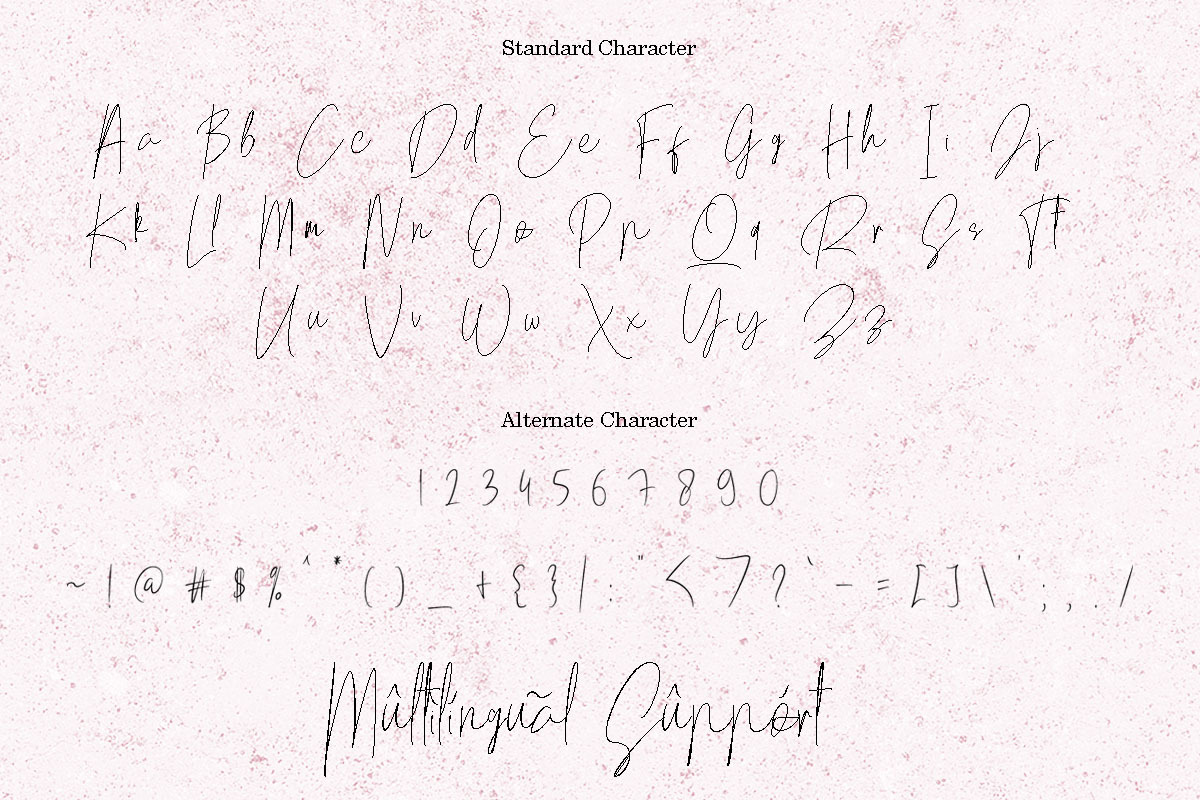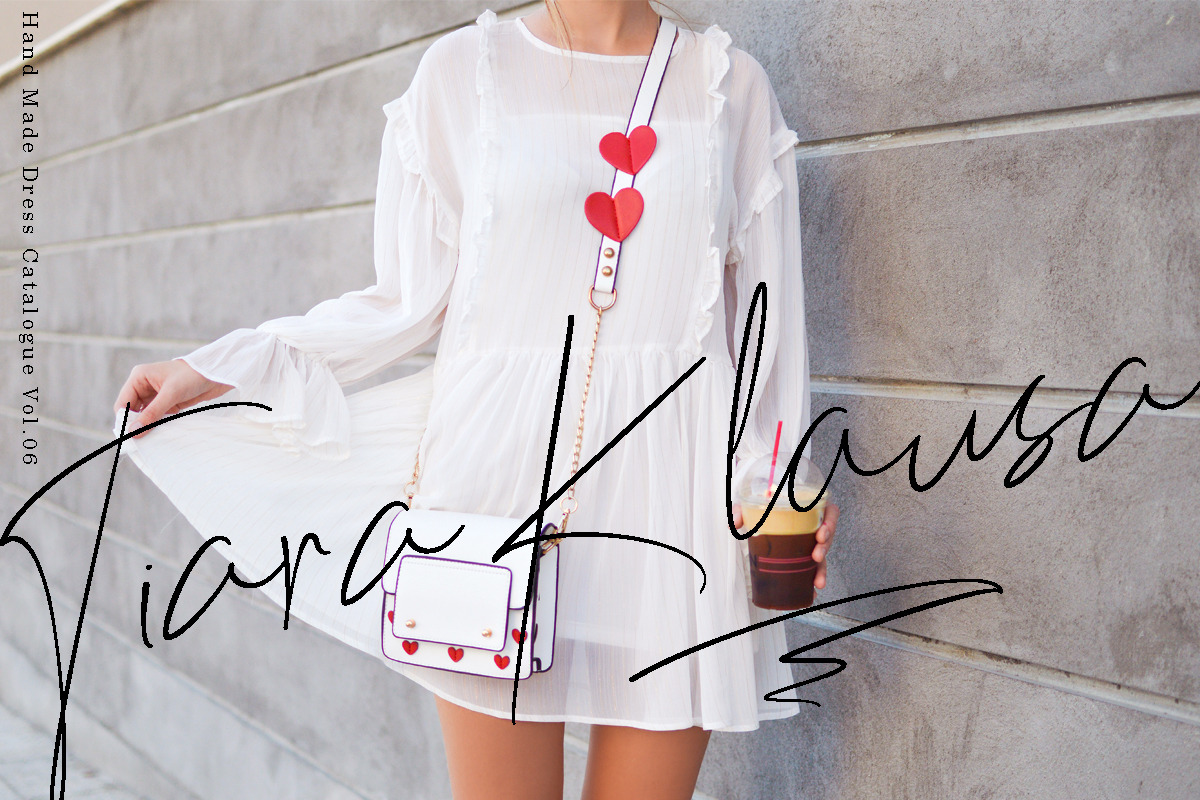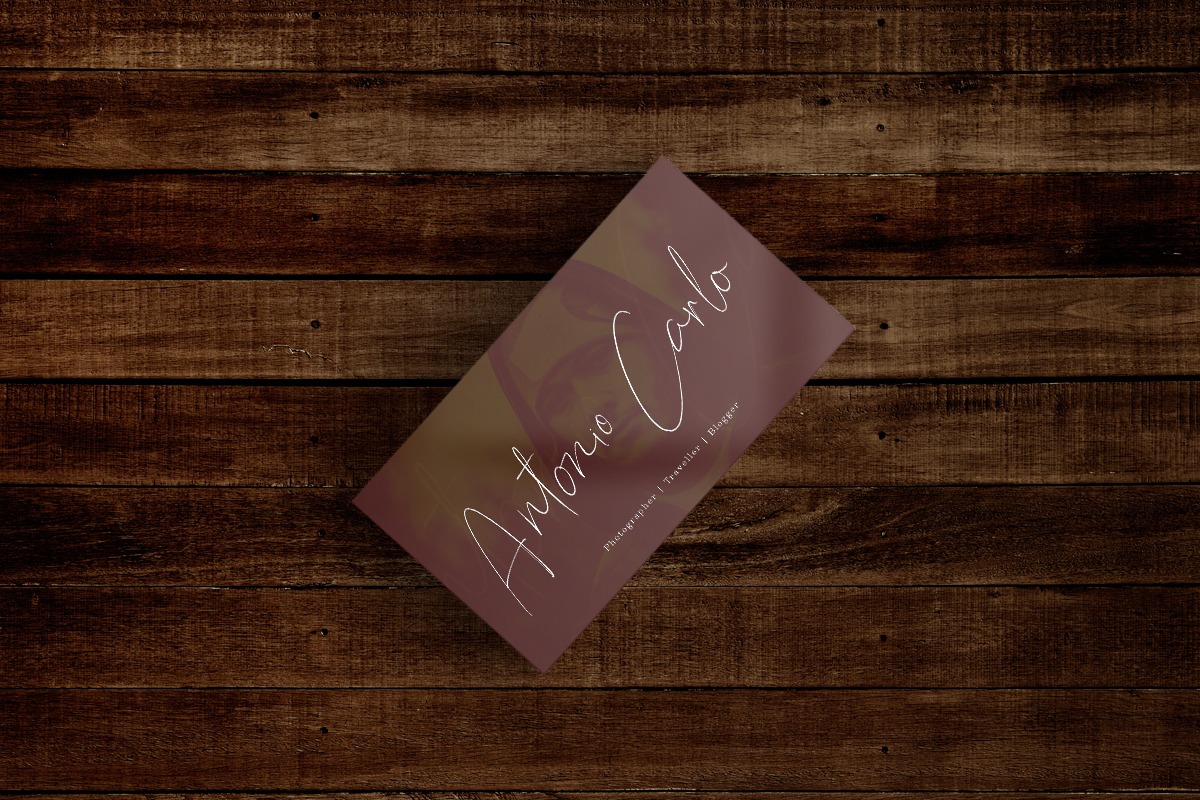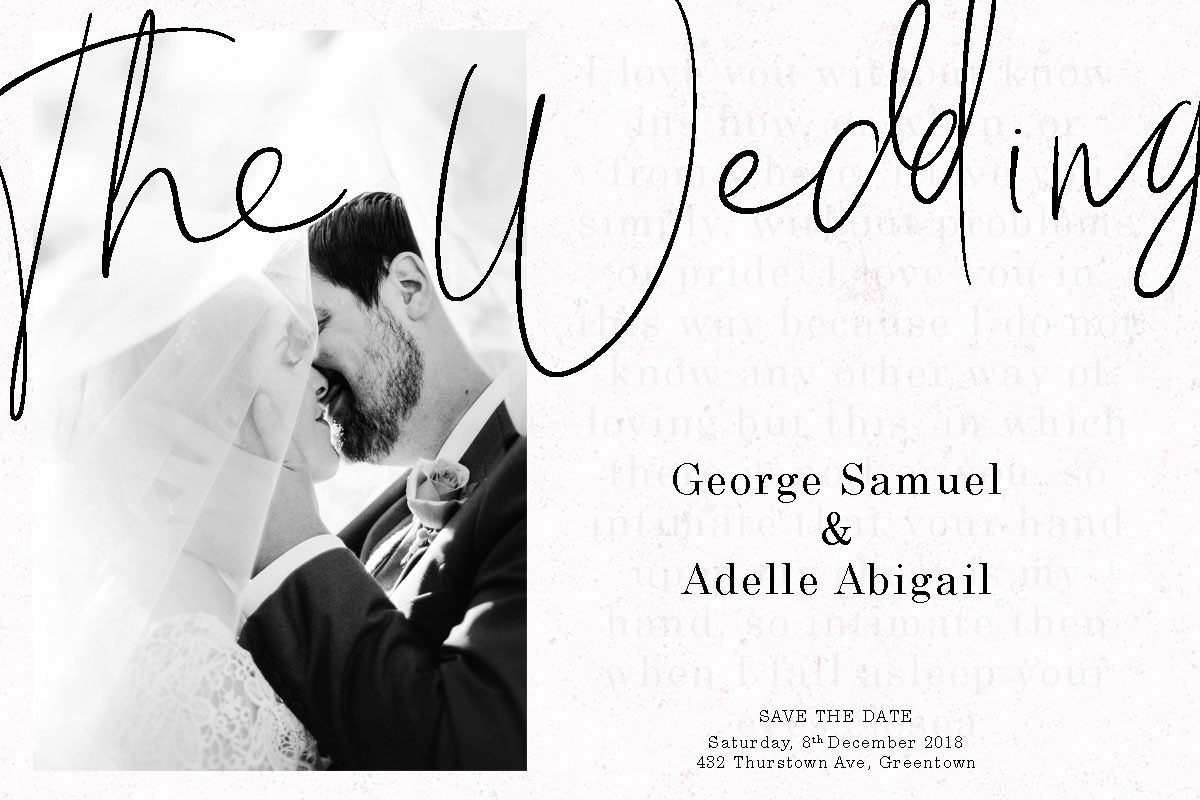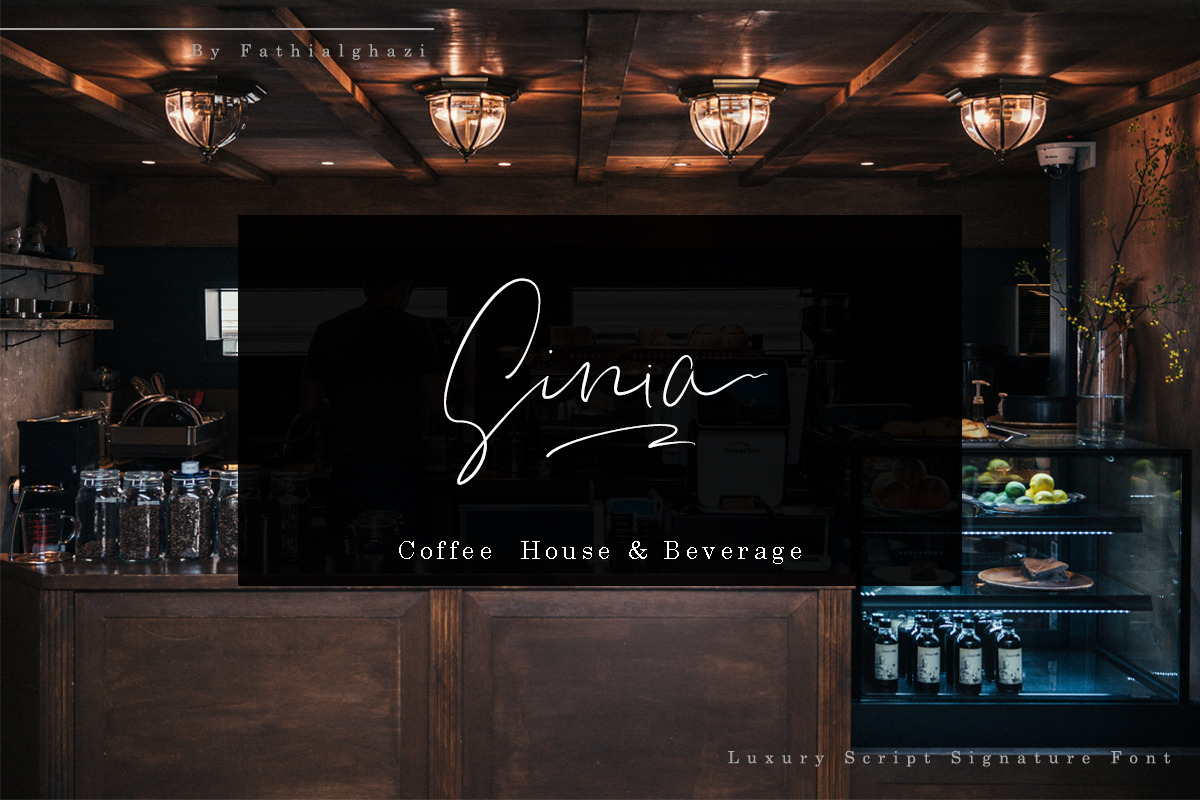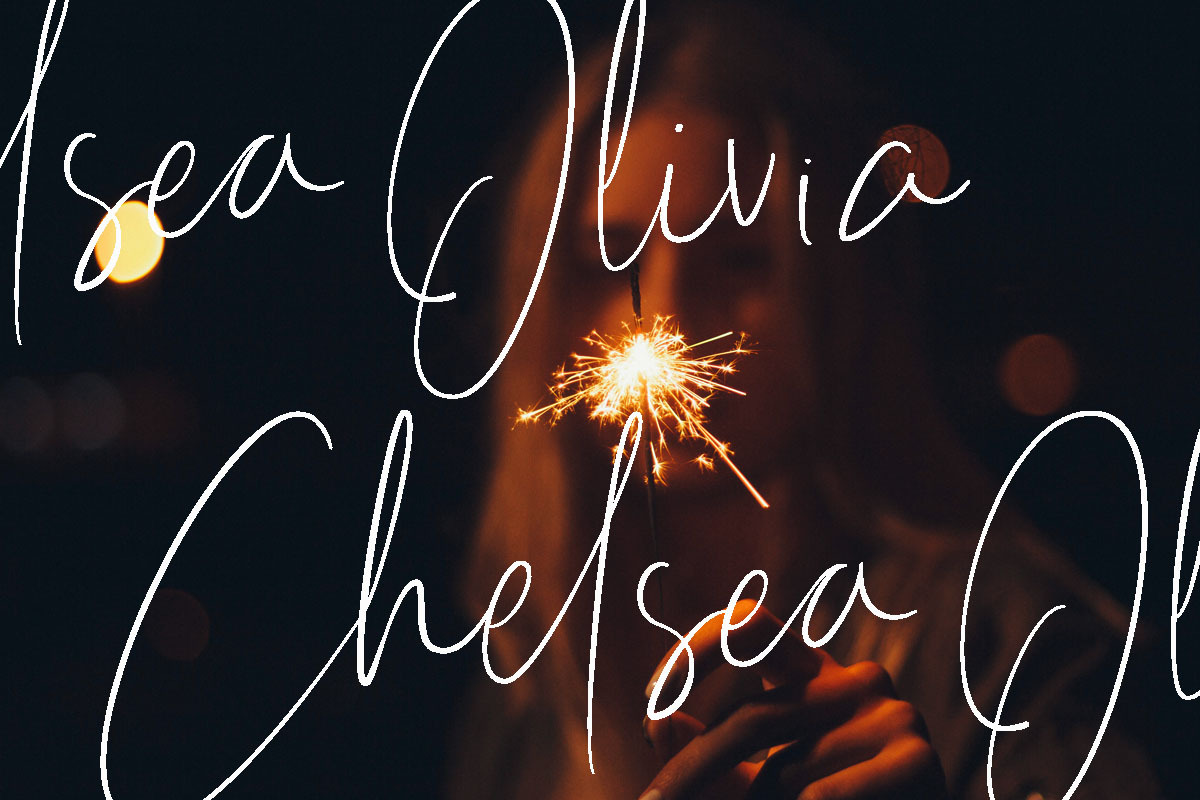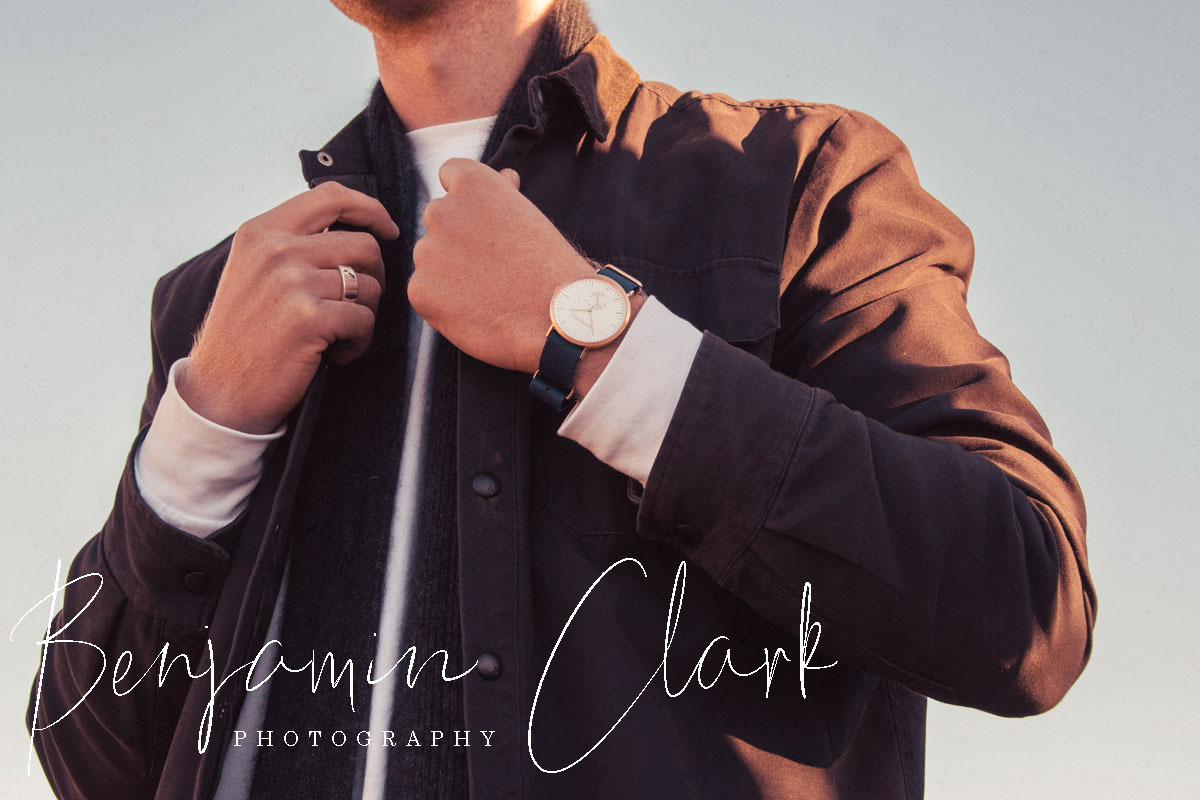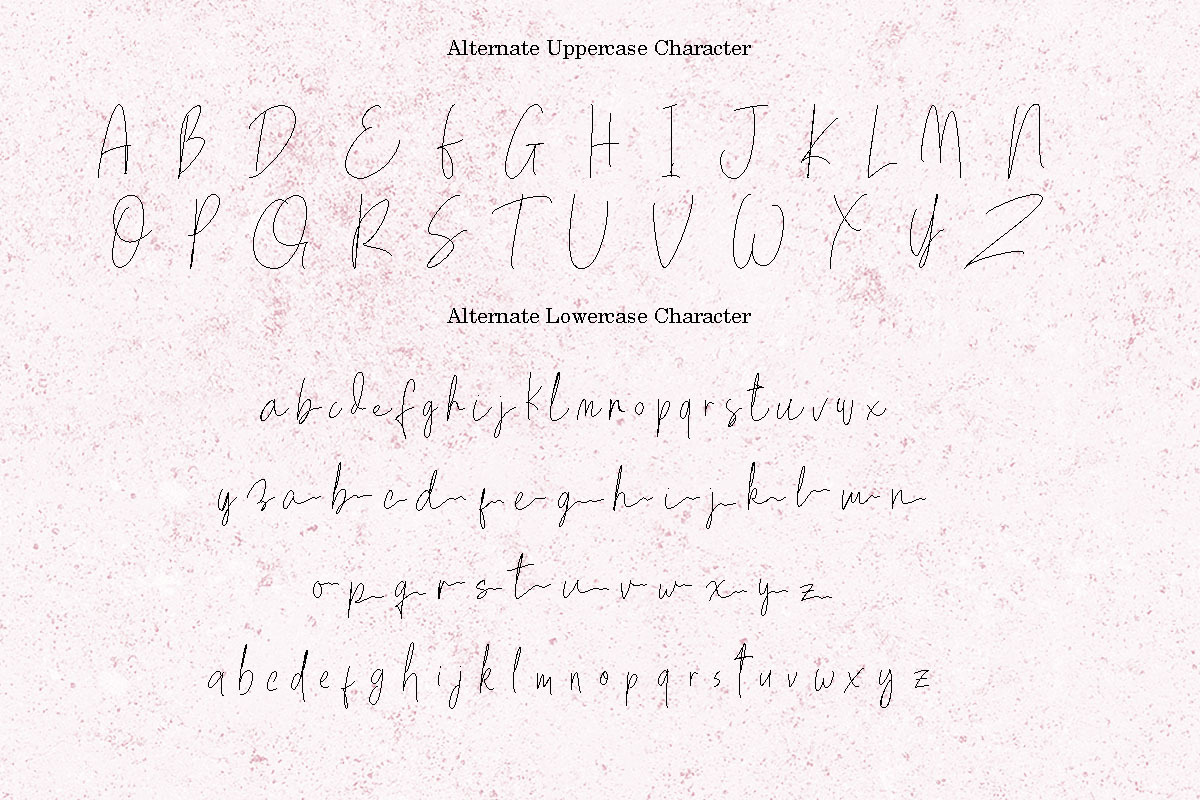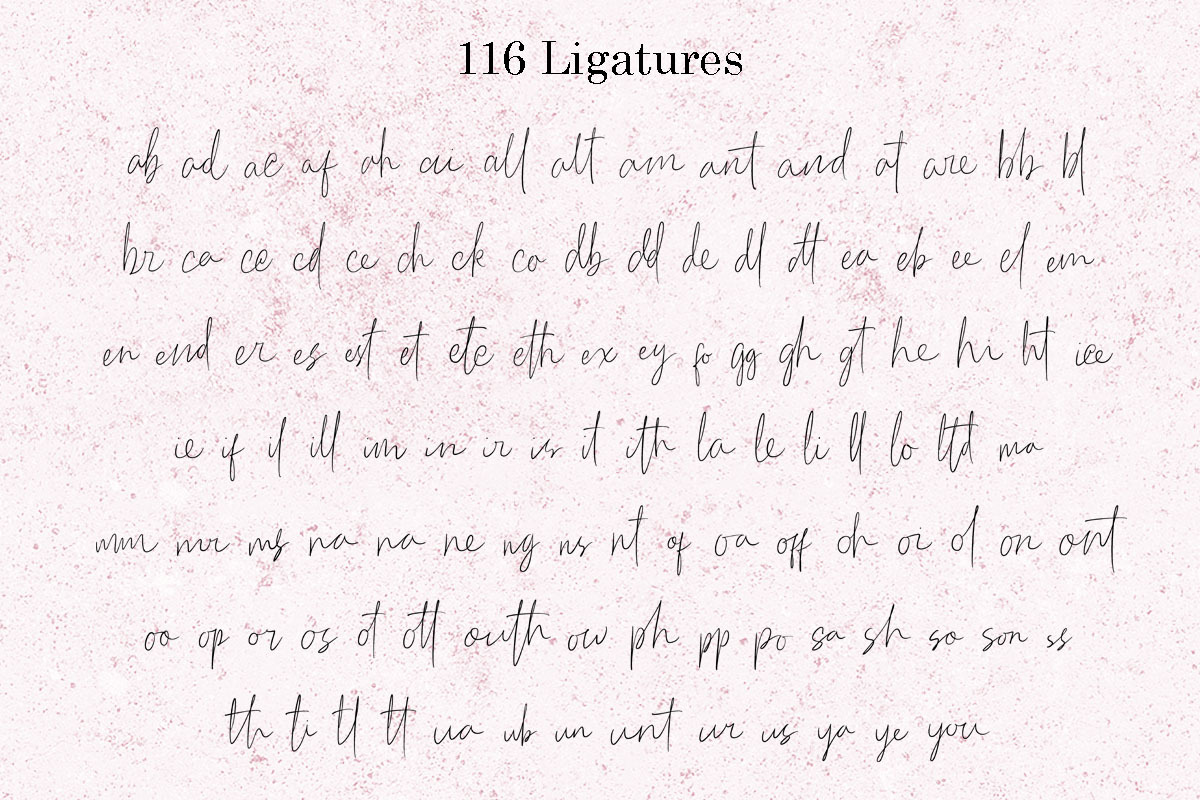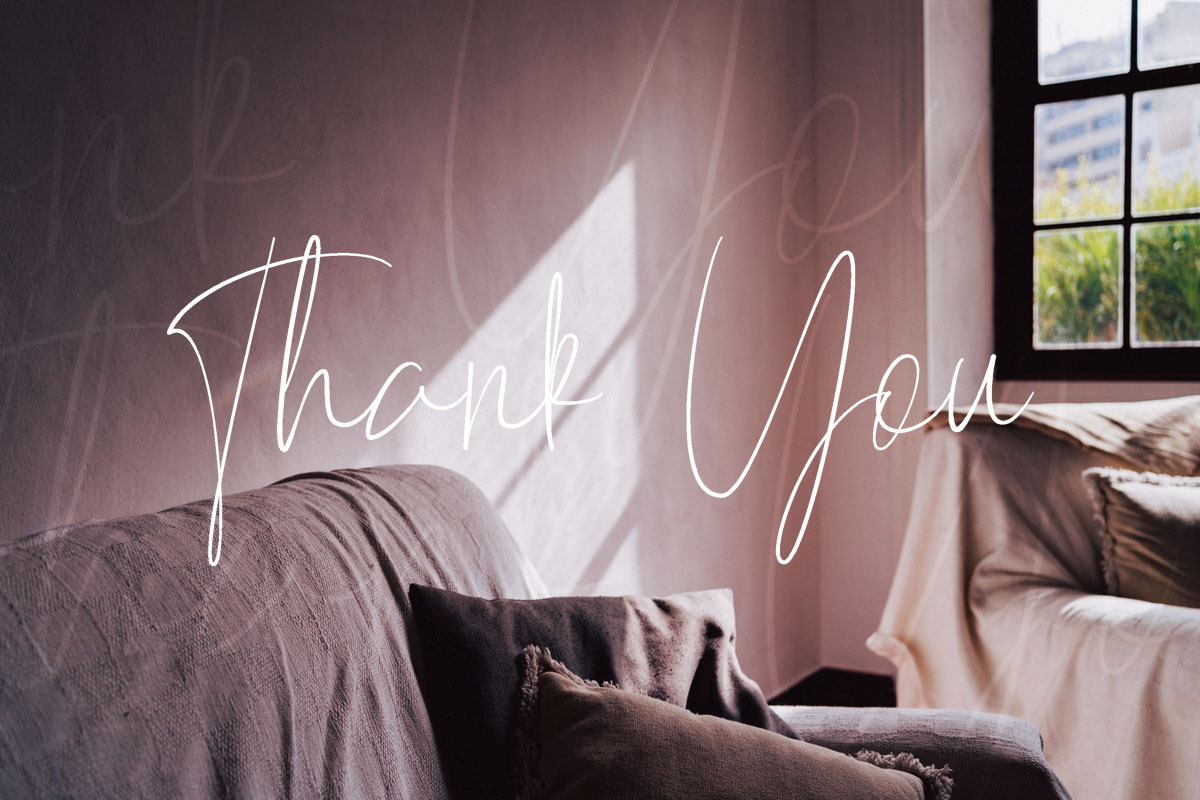
Mellati - Luxury Script Signature
Introducing Mellati, a Luxury Signature from handwritten sketch. Mellati was created as the best choice for showing luxury in design. made from hand scratches that must look real. Mellati is suitable for use in a variety of media, such as posters, business cards, brand logos, invitations, banners, stationary, fashion, quotes and other media that require beautiful and luxurious writing.
What's Mellati Features ?
- 4 Alternates Set Glyphs
- 116 Stunning Ligatures
Here's list of 116 Stunning Ligatures
ab ad ac af ah ai all alt am ant and at are bb bl br ca cc cd ce ch ck co db dd de dl dt ea eb ee el em en end er es est et etc eth ex ey ff fi fo gg gh gt he hi ht ice ie if il ill im in ir is it ith la le li ll lo ltd ma mm mr ms na ne ng ns nt oa of off oh oi ol on ont oo op or os ot ott outh ow ph pp po sa sh so sn ss st th ti tl tt ua ub un unt ur us ya ye you